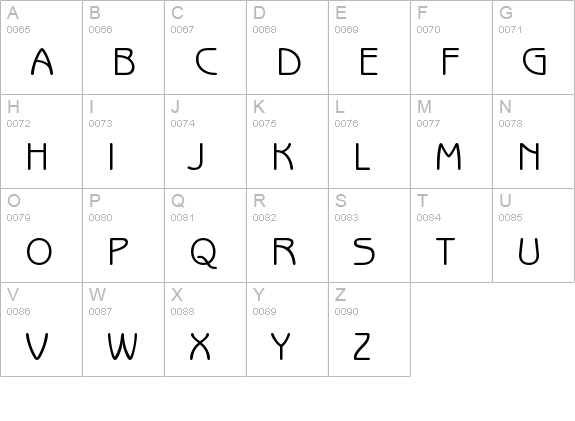
Benguiat Gothic Book BT is a comfortable, highly readable variant in the Benguiat typeface family \xE2\x80\x94 well suited to long-form body text, articles, and editorial content.
Benguiat Gothic Book BT font is a versatile typeface that exudes a sense of modernity and sophistication. With its clean lines and sleek design, this font is perfect for a wide range of design projects, from branding to editorial. The elegant and timeless appeal of Benguiat Gothic Book BT font makes it a popular choice among designers looking to add a touch of class to their work. What sets Benguiat Gothic Book BT font apart is that it is available for free download at FontsMarket.com. This means that you can easily access this high-quality font without having to break the bank. Whether you are working on a personal project or a professional assignment, Benguiat Gothic Book BT font is a fantastic option that will elevate your design and make a lasting impression. Download this font today and see how it can enhance your creative endeavors.